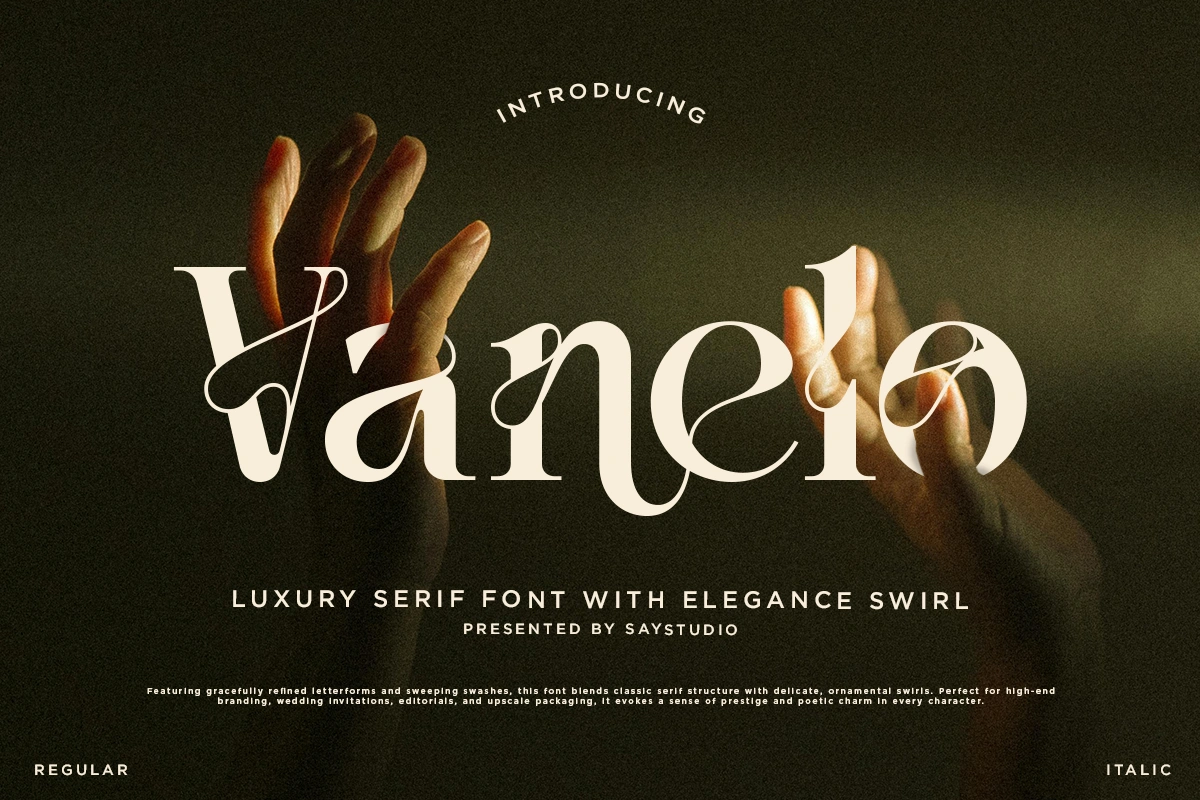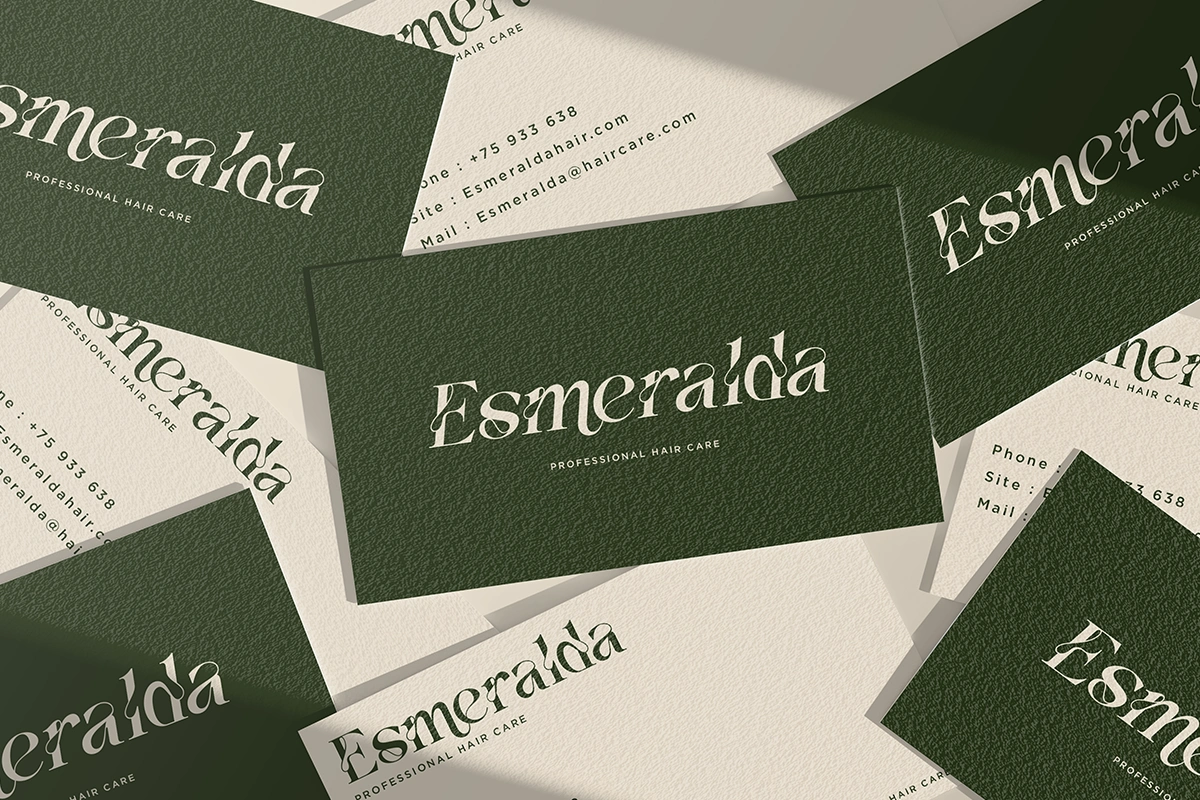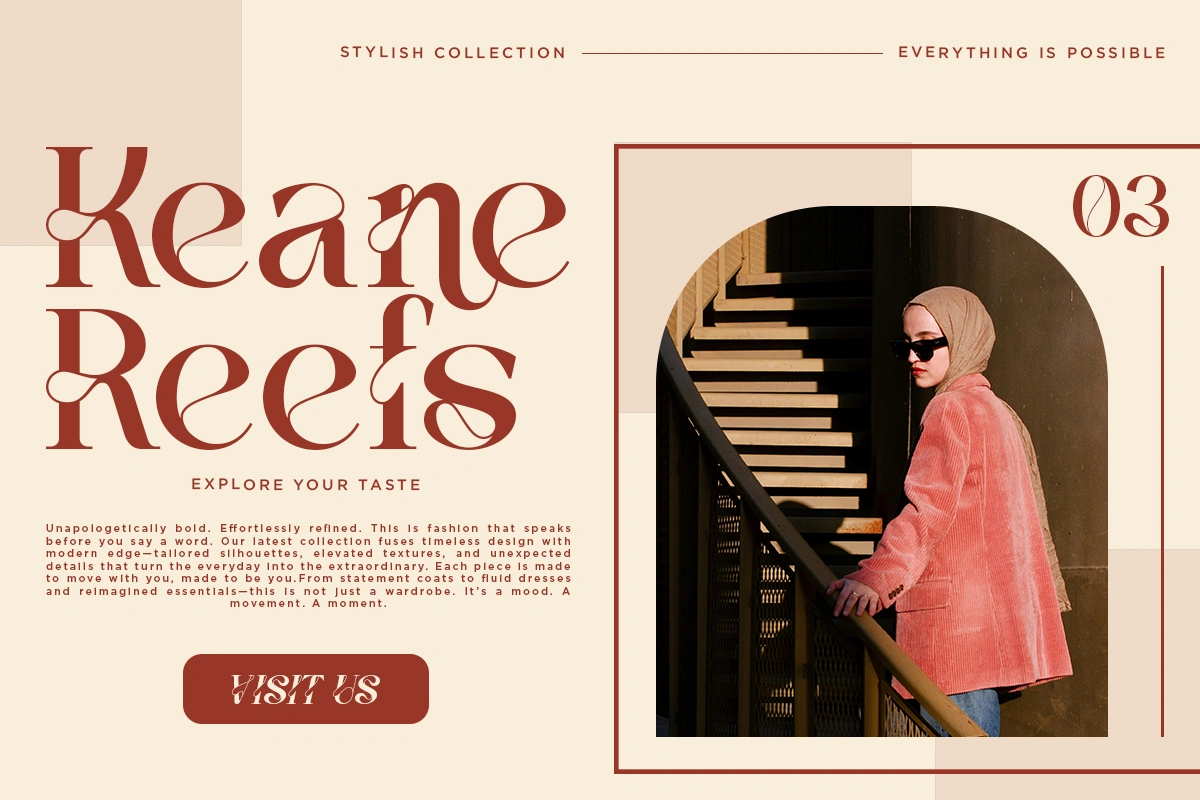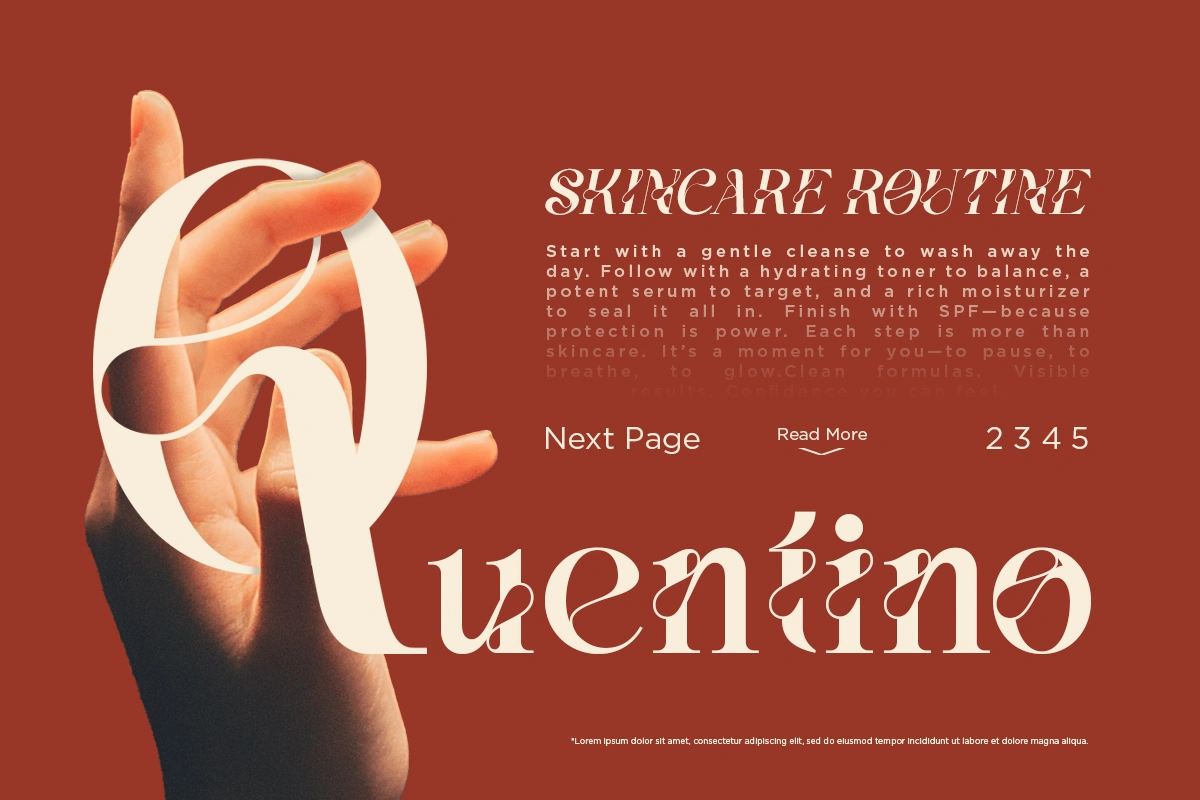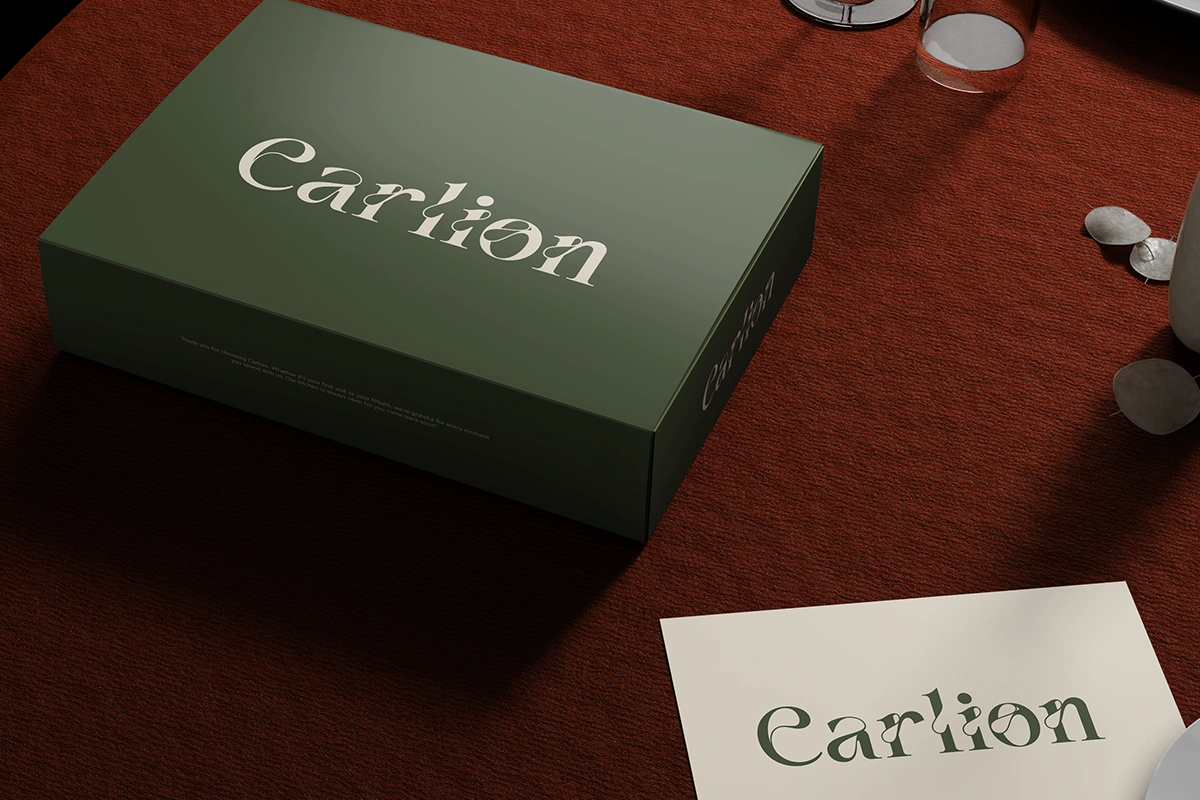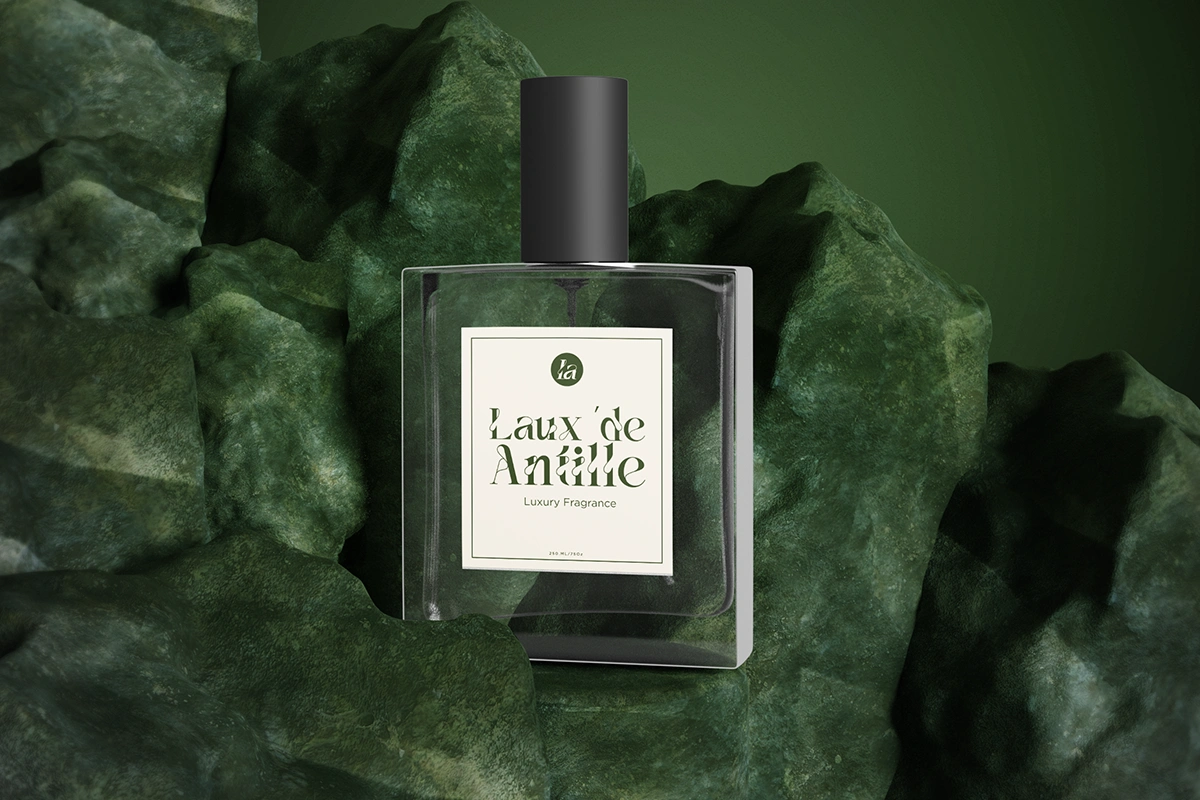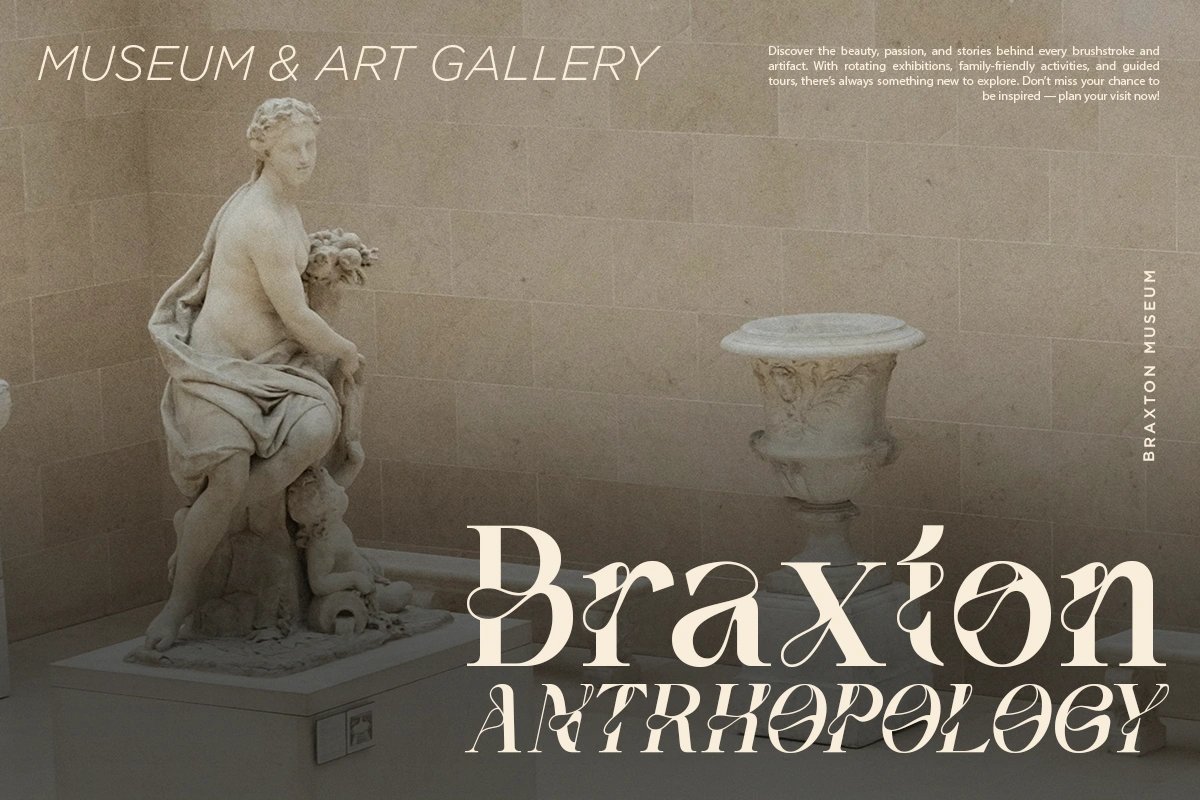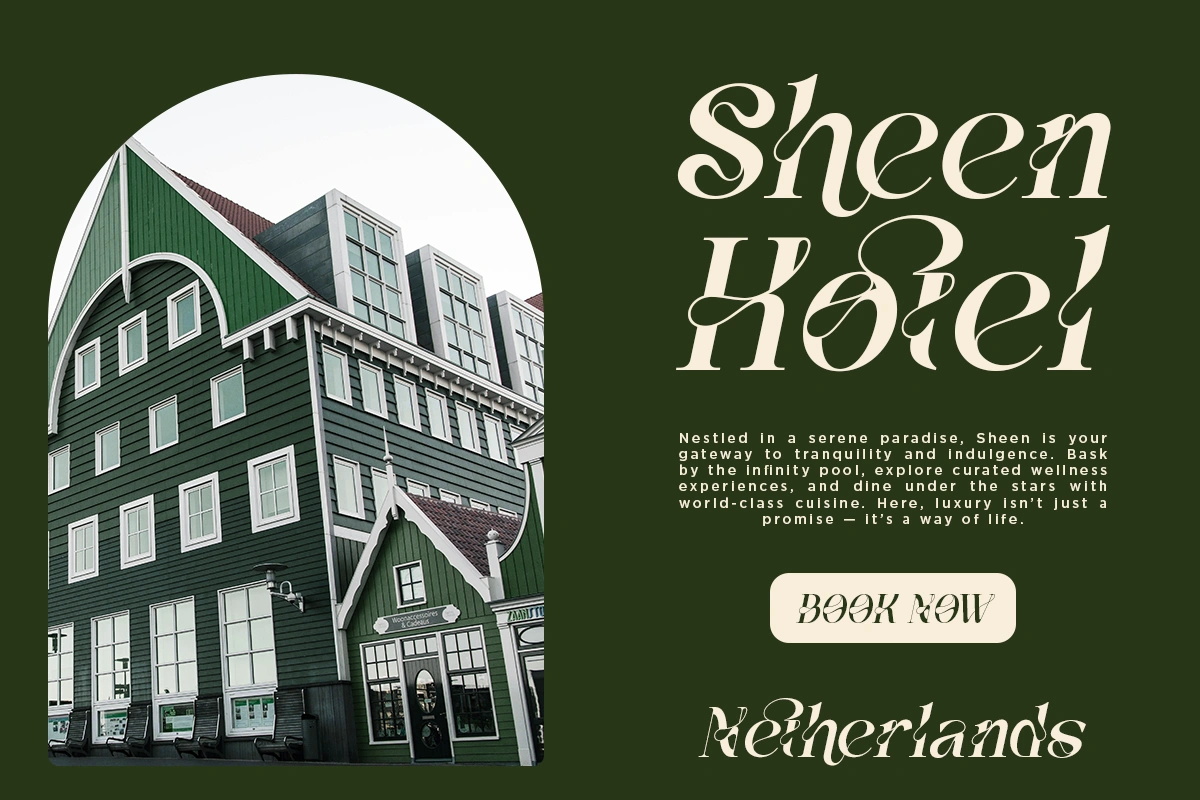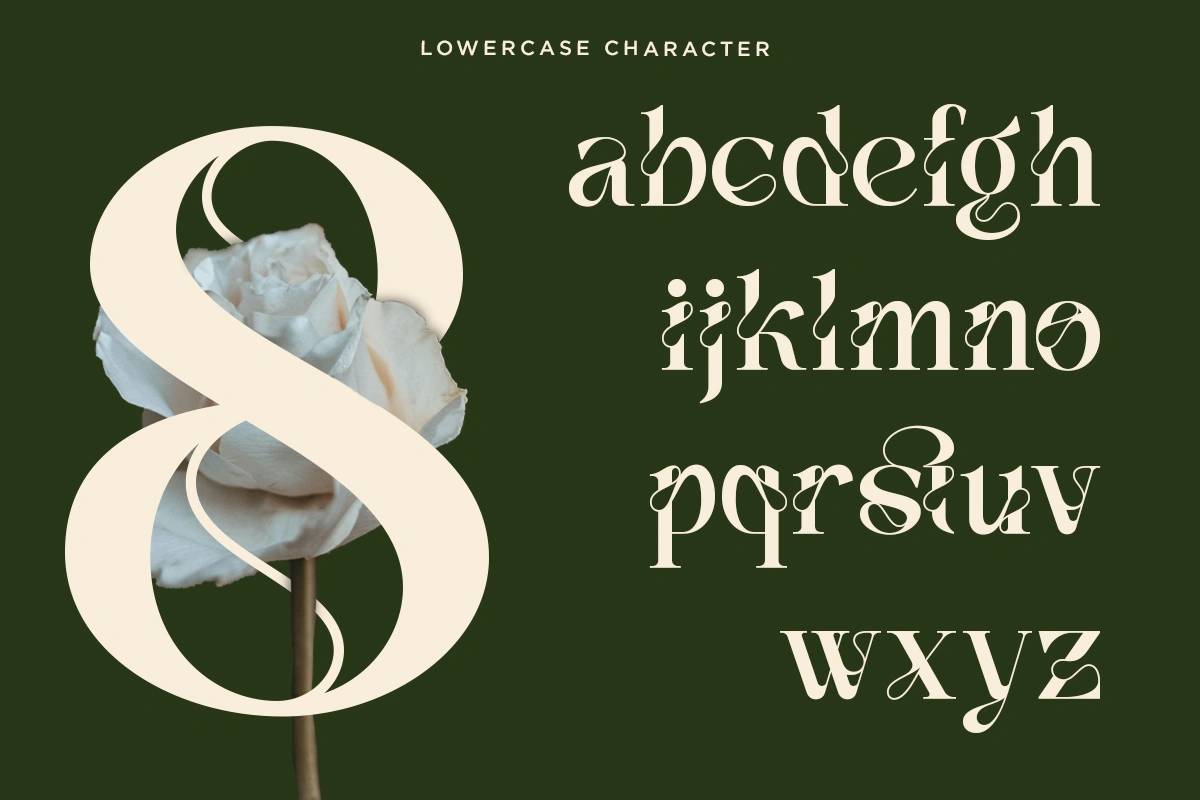
Vanelo – Serif Font
Vanelo is a luxury serif typeface with elegance swirl that blends dramatic curves with minimalist finesse. Tailored for fashion editorials, branding for premium products, and elegant logos, Vanelo carries an aura of mystery and timeless beauty. Each glyph is meticulously crafted with unique alternates that elevate your typography game to the next level. Perfect for designers who crave modern elegance with a strong, graceful personality. Vanelo Included : - Vanelo Regular ( TTF,OTF,WOFF ) - Vanelo Italic ( TTF,OTF,WOFF ) - Stylistic Ligatures - Multilingual Support Thanks, Have a nice day Say Studio